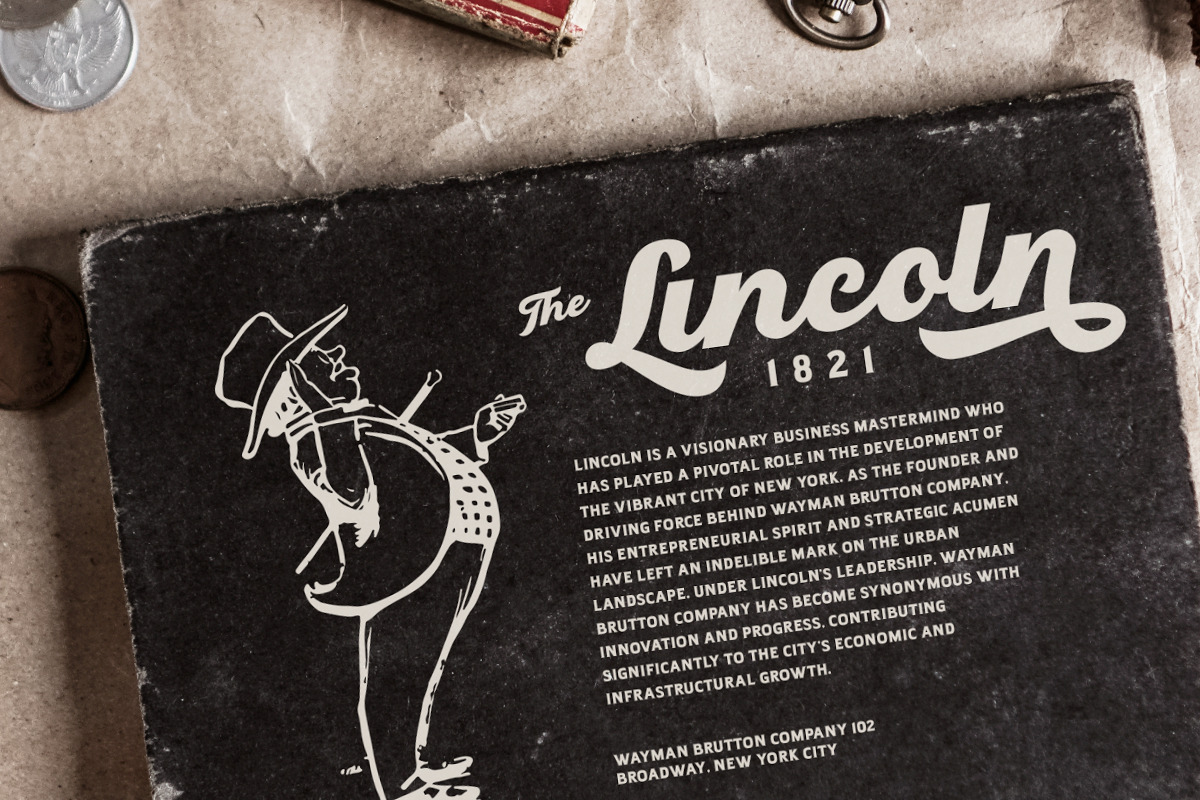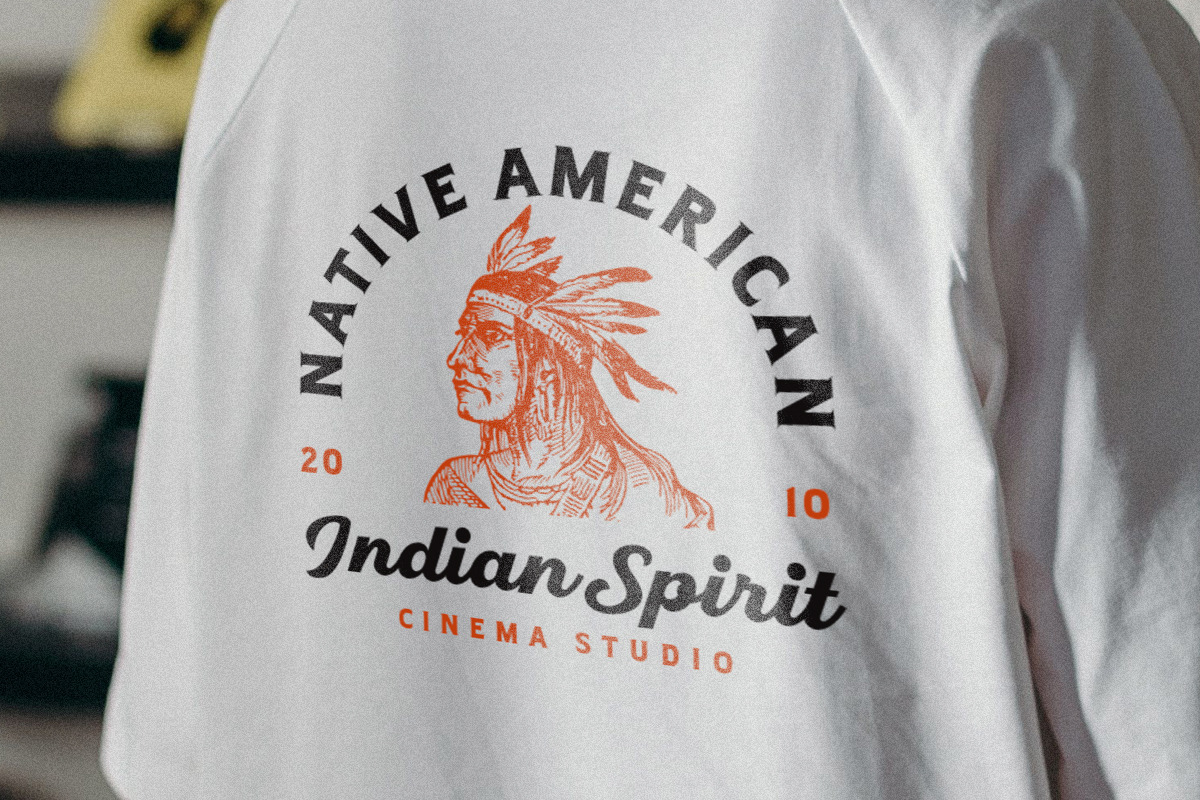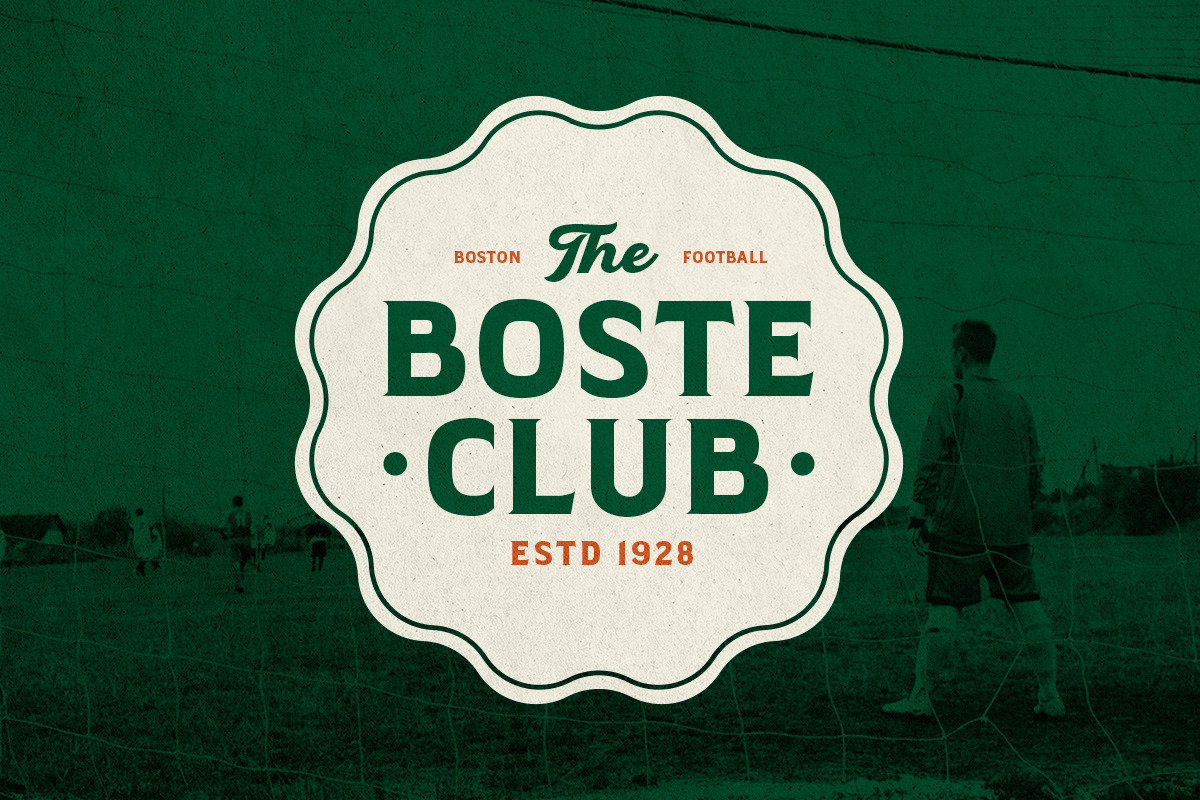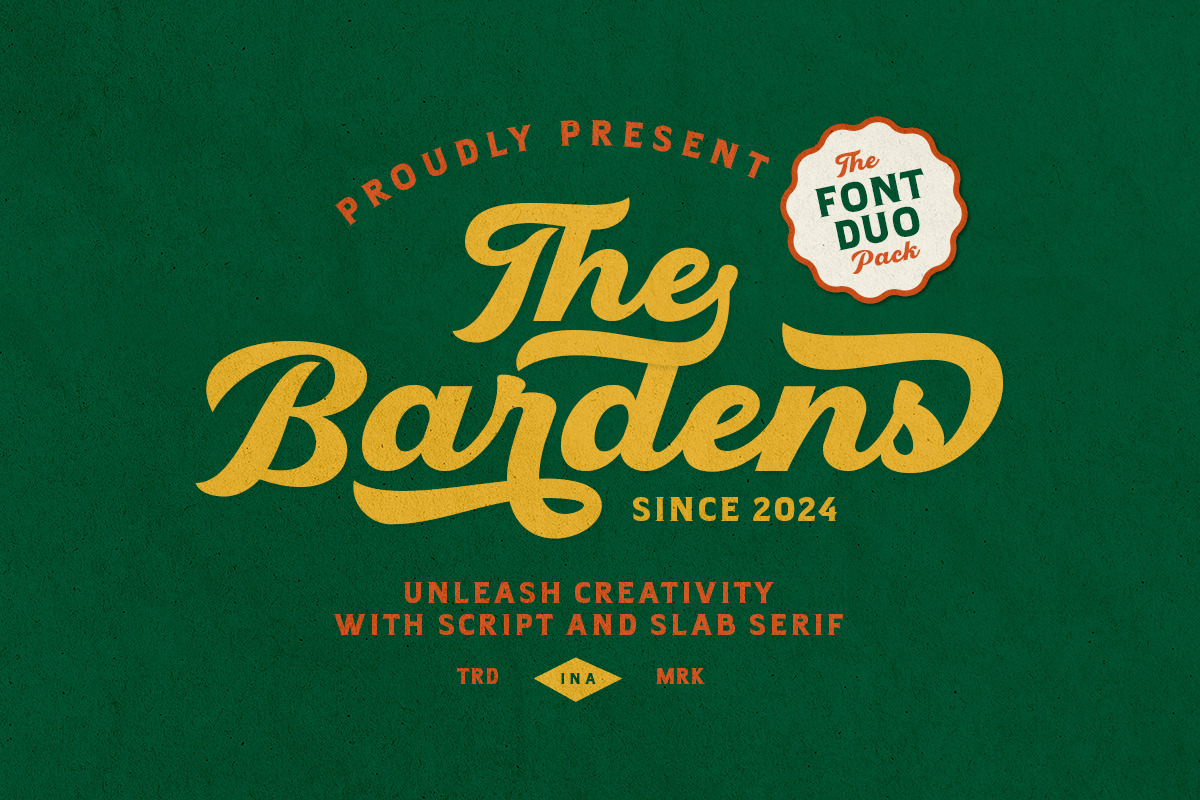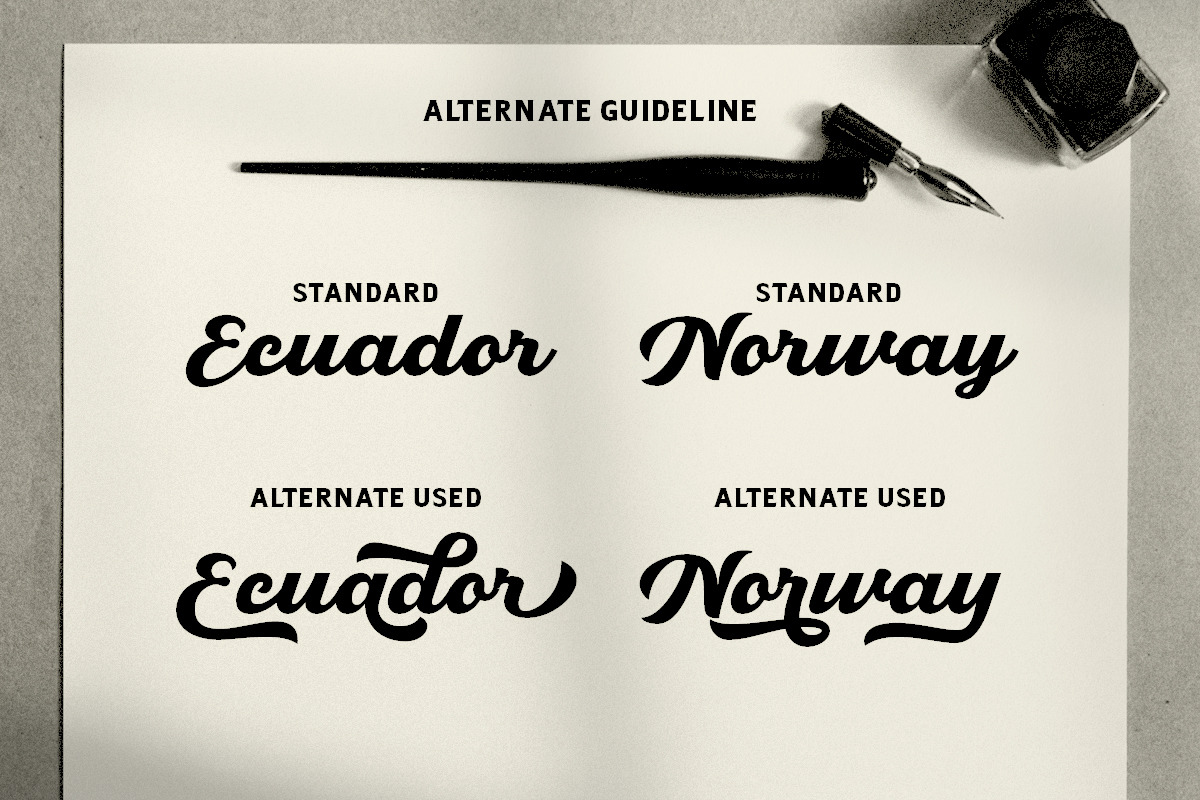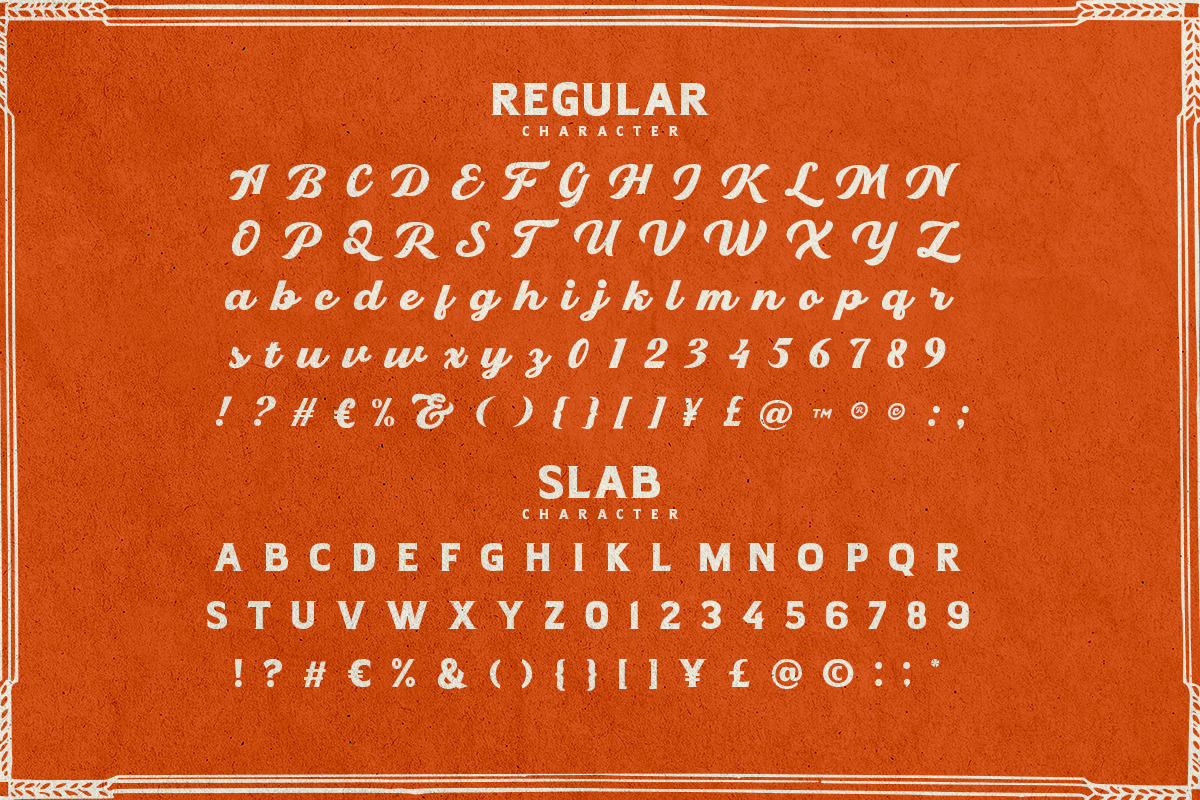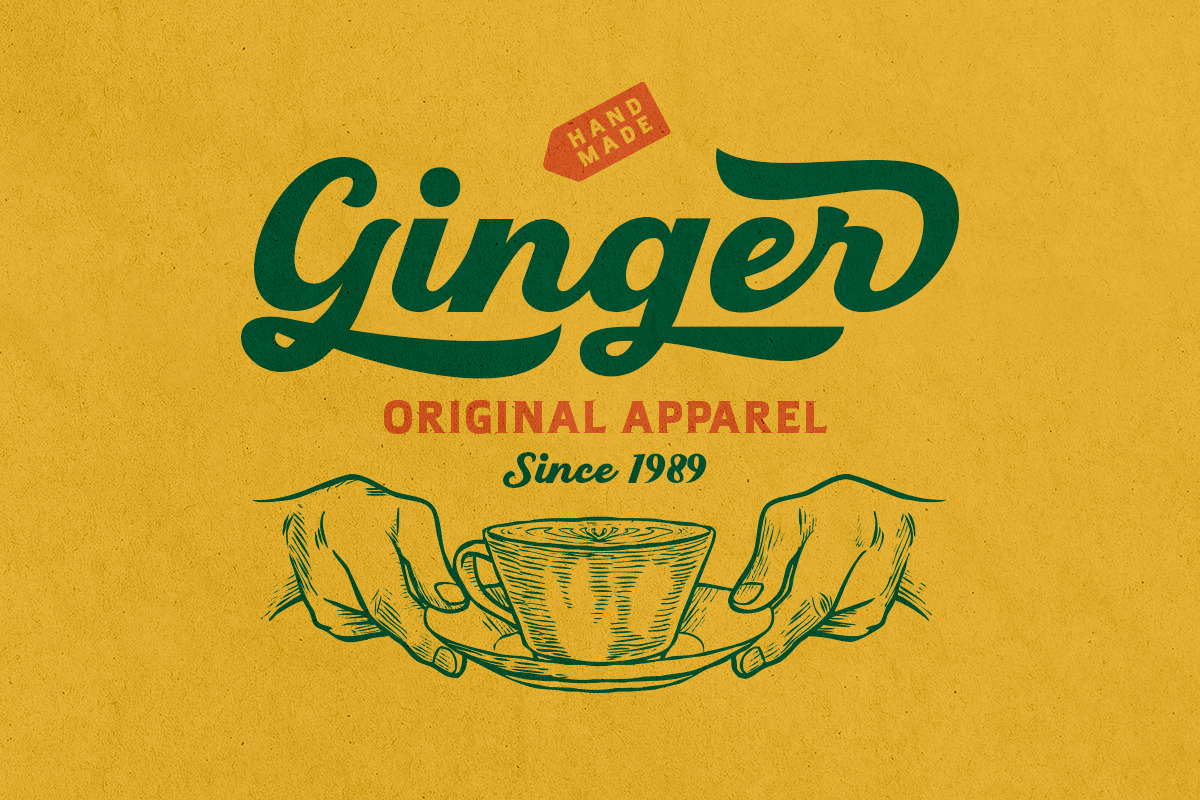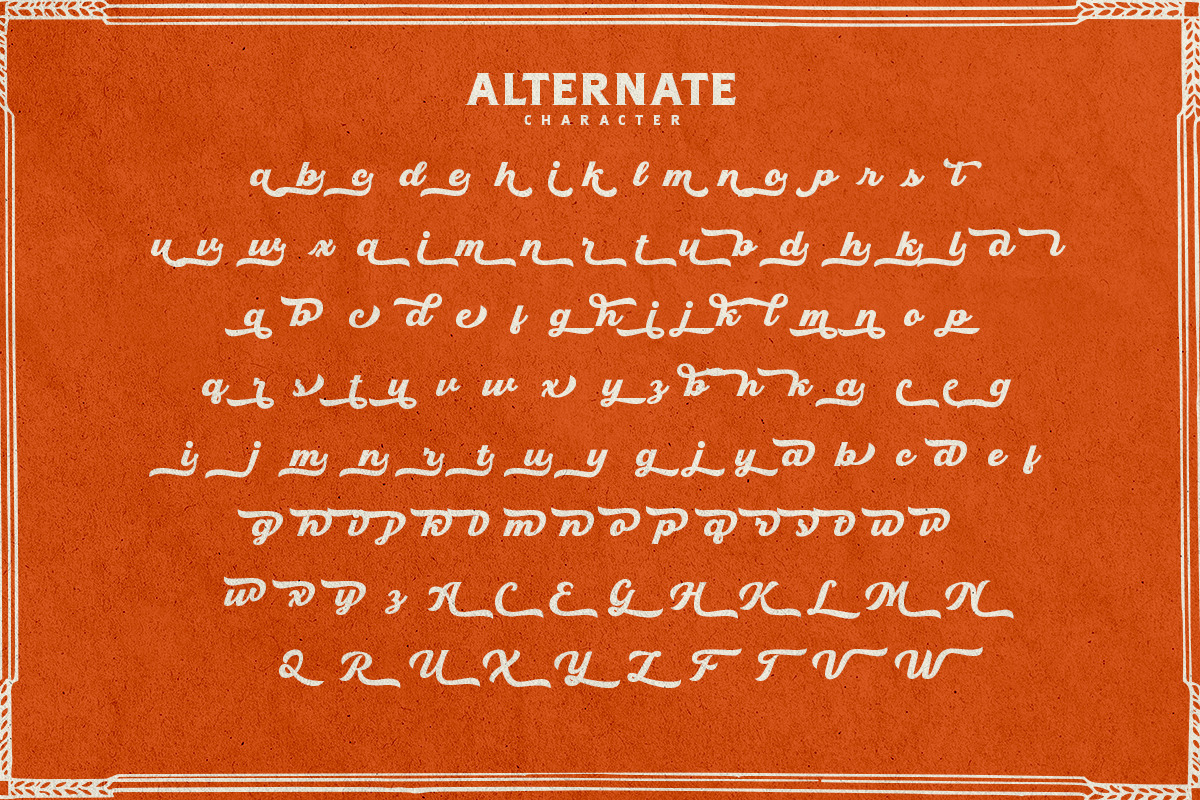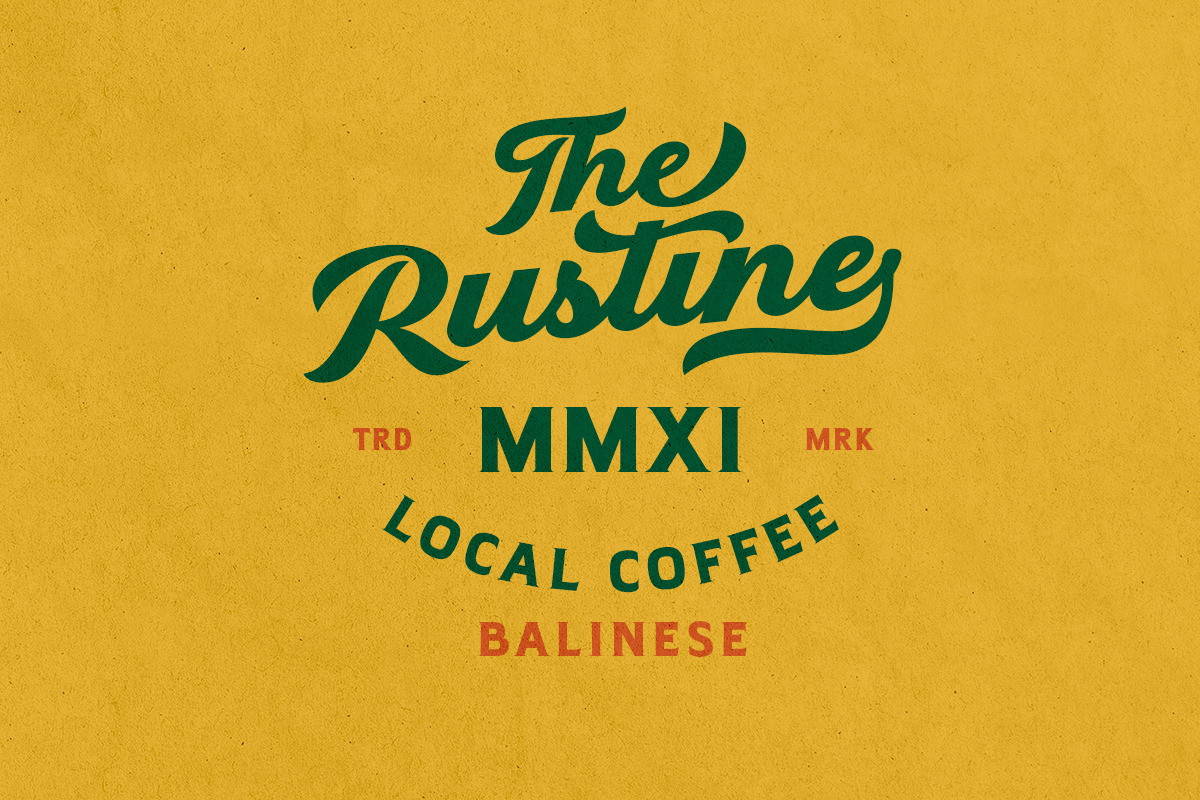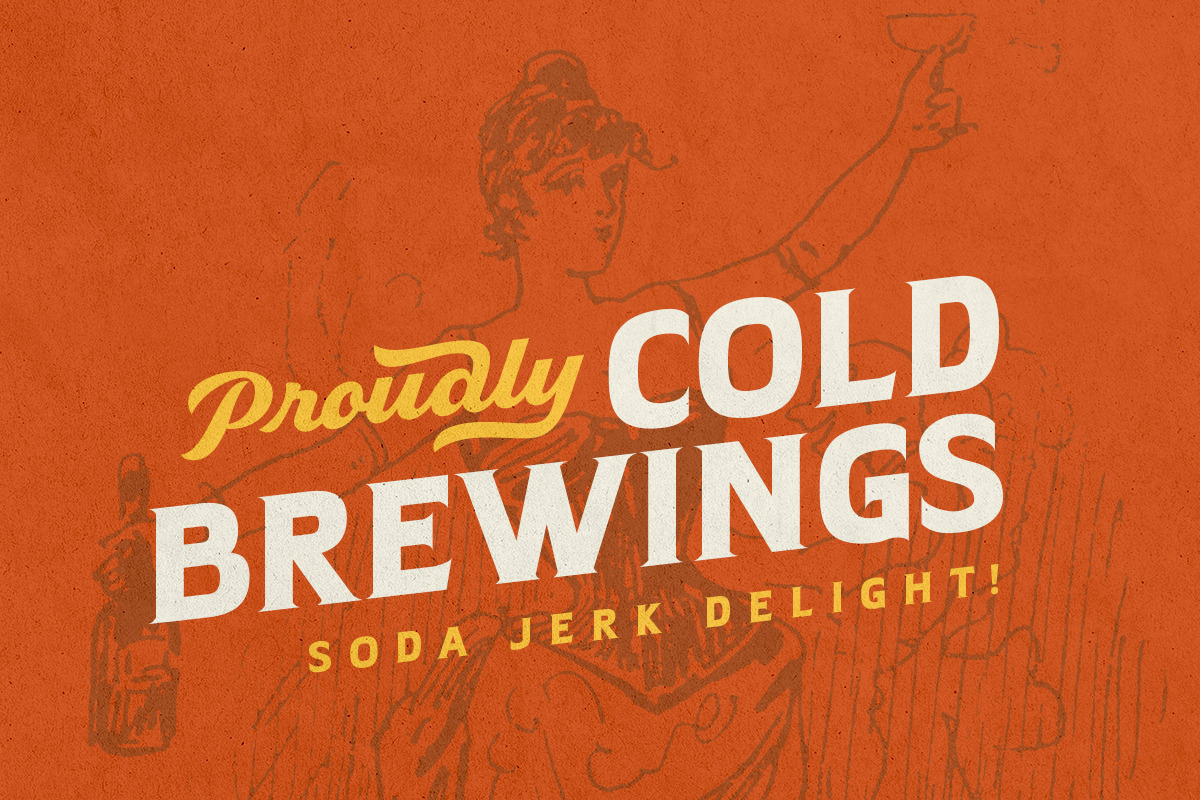
Bardens - Retro Font Duo
Bardens is a retro font duo that contains Script and Slab Serif. The combination of a flowing, stylish script font with a bold, block-like slab serif font to create a nostalgic and vintage aesthetic. The script font features fluid strokes and decorative elements, making it ideal for headlines and logos, while the slab serif offers geometric shapes and uniform stroke widths, providing a sturdy and impactful presence. Together, they offer a visually appealing contrast and balance, perfect for branding, packaging, advertising, and print materials that need retro and vintage vibes. This font duo is suitable for baseball or football logo. Bardens also support multi language.